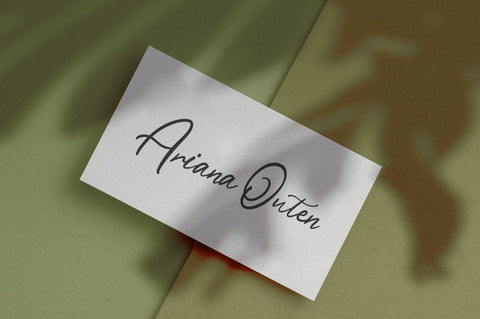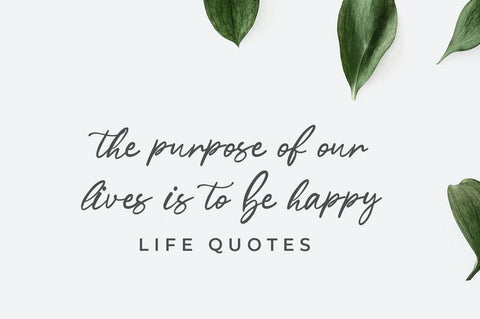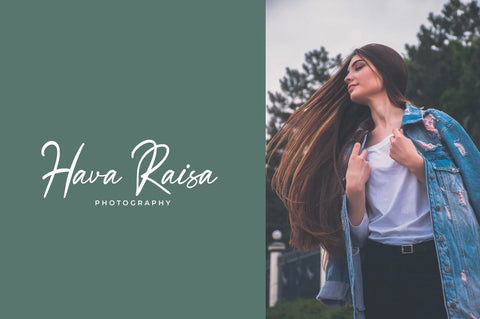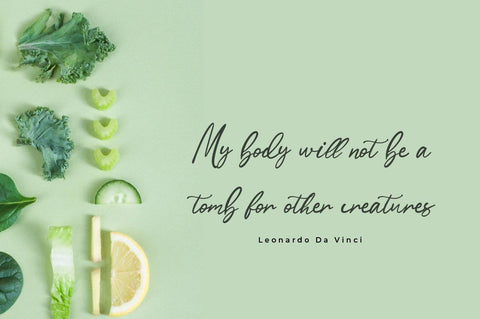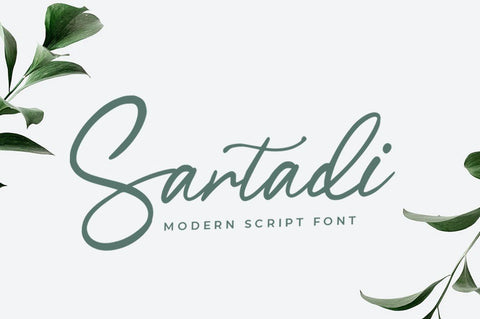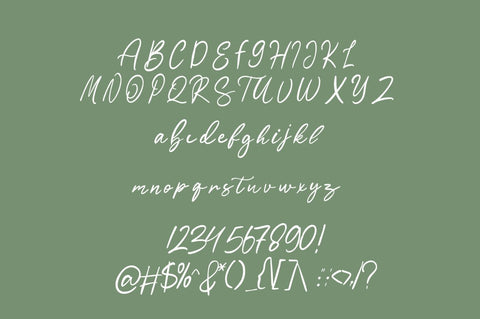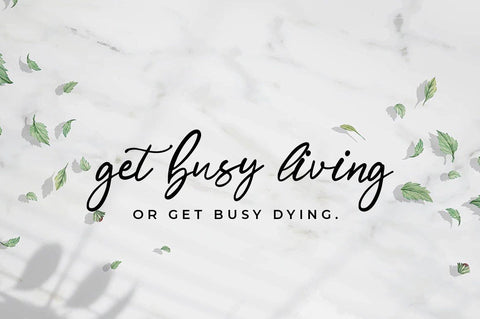
Sartadi Script Font
Sartadi - Beautiful Script Font is script with beautiful ligature and alternate font. inspired by a luxury fashion. Contemporary handwriting fonts with ligatures and alternative styles ready to add unique look and bloom on your design